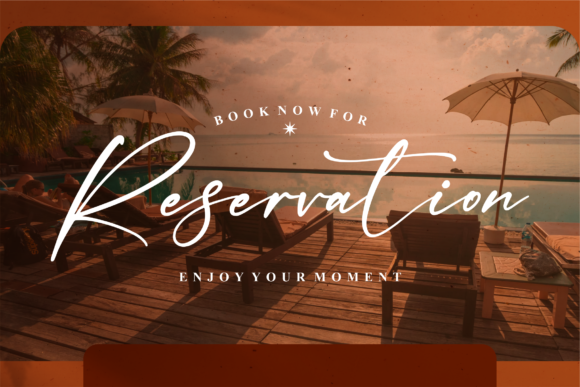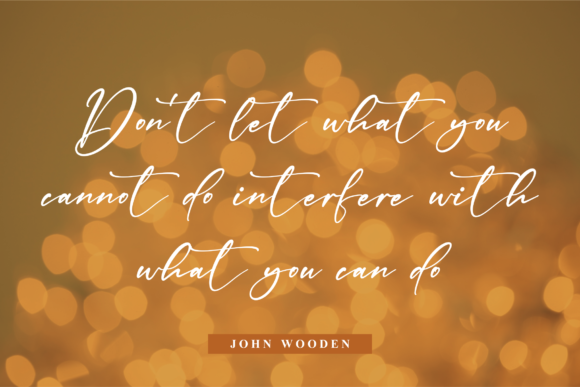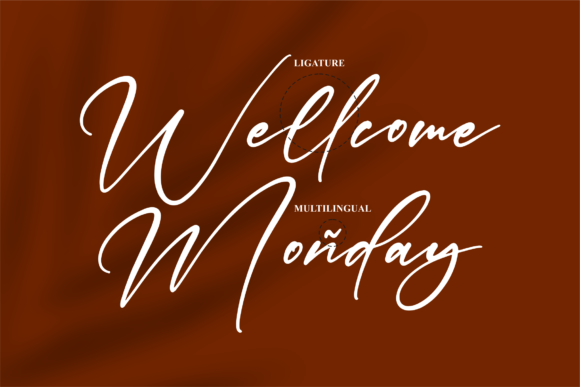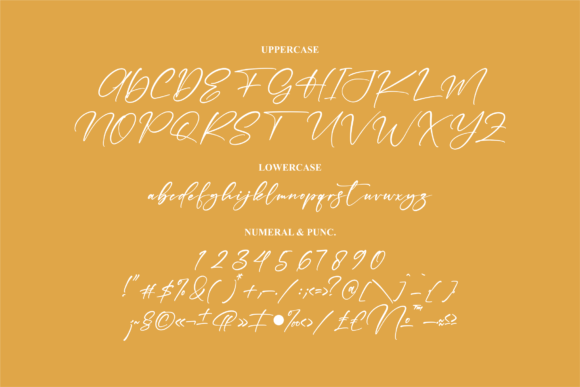
About Heather Frontis Font
Heather Frontis is a beautiful and light handwritten font with a unique feel and a stunning impact. It will add a luxury spark to any design project that you wish to create! This font is PUA encoded which means you can access all of the amazing glyphs and ligatures with ease!